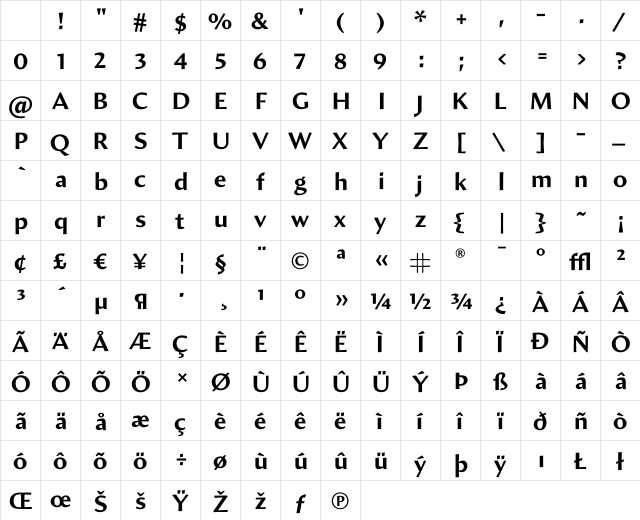
Complete Amira Bold glyph index. Displaying only characters natively supported by Amira Bold font.
Amira is a composed and adaptable typeface that performs quietly and consistently across a wide range of design contexts. Its bold stroke weight gives it real presence on the page.